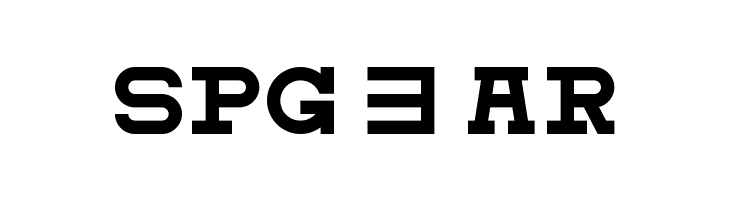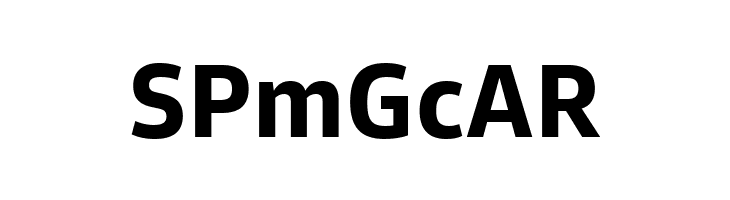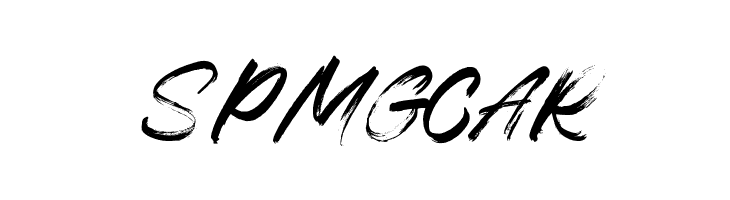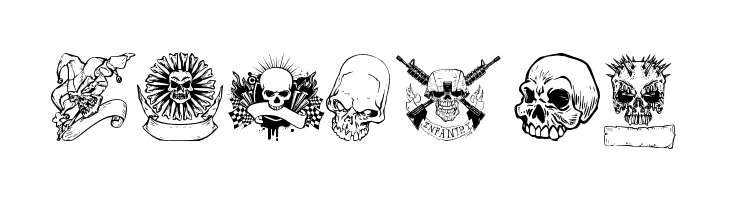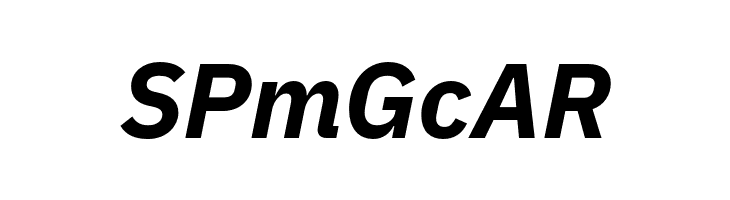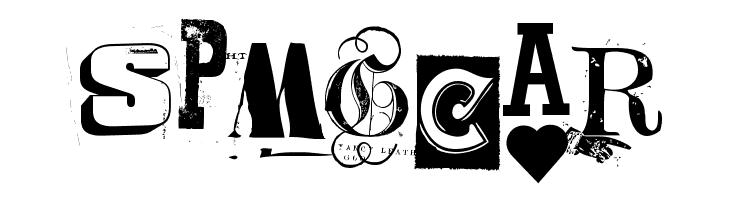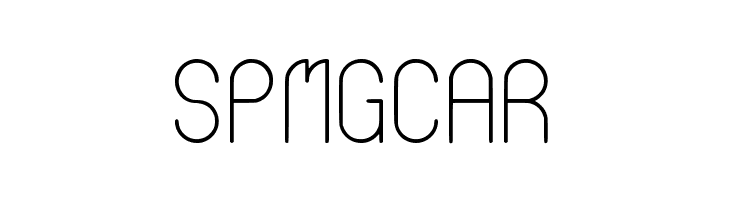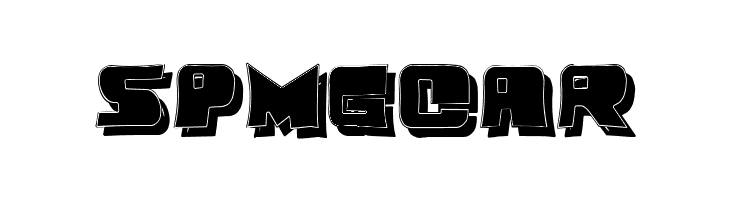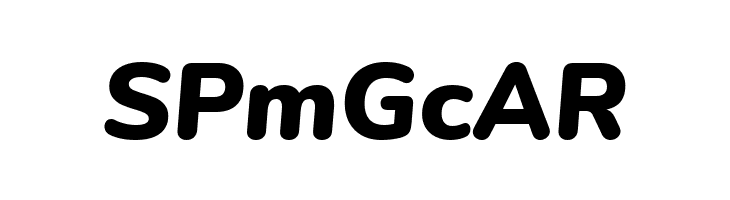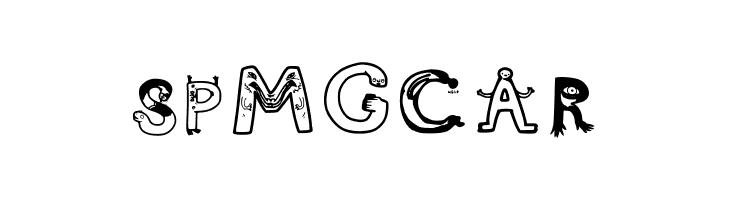
A bold, geometric font with strong, impactful letterforms.
A bold, modern sans-serif typeface with strong, uniform strokes.
A dynamic brush script font with bold, sweeping strokes and artistic flair.
Ornate, illustrative skull icons with a bold, tattoo-style appearance.
A bold, eclectic display typeface inspired by vintage circus posters.
A modern, geometric font with thin, uniform lines and rounded edges.
A bold, industrial-style font with a blocky, three-dimensional appearance.
A modern, bold, and italic rounded sans-serif font with medium contrast.
A whimsical and playful display font with unique, illustrative letter designs.